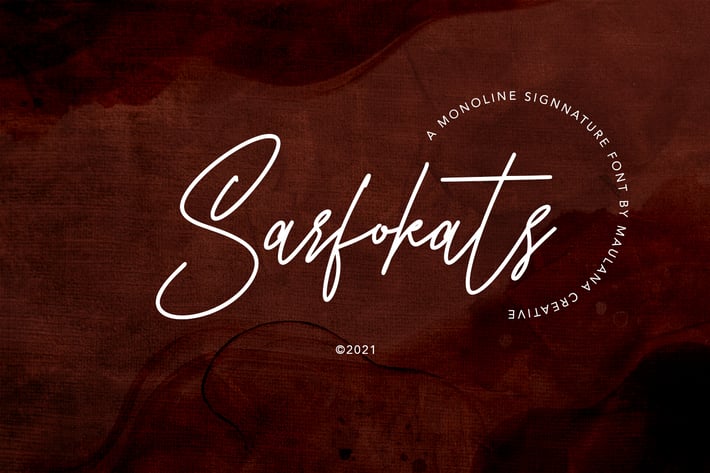
Sarfokats Monoline SIgnature Font
Give your designs an authentic handcrafted feel. Sarfokats Monoline SIgnature Font is perfectly suited to logo, stationery, branding, typography quotes, magazine or book cover, website header, clothing, branding, packaging design, restaurant and more.